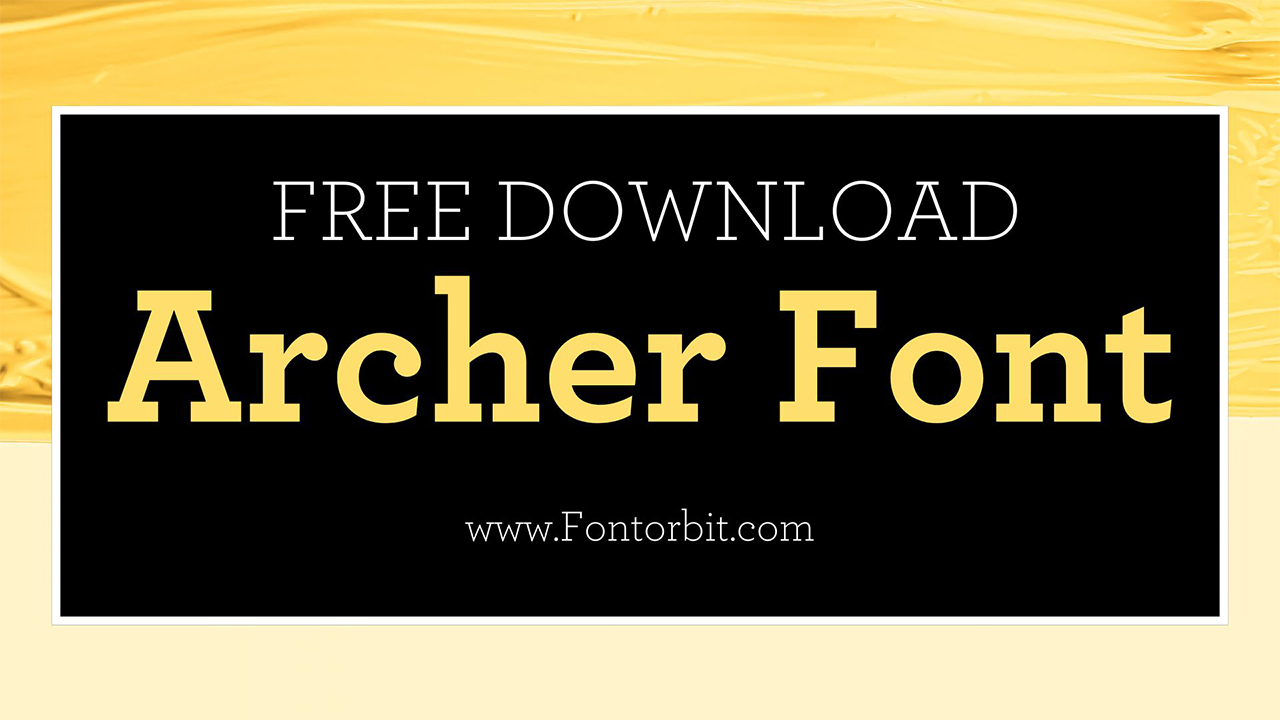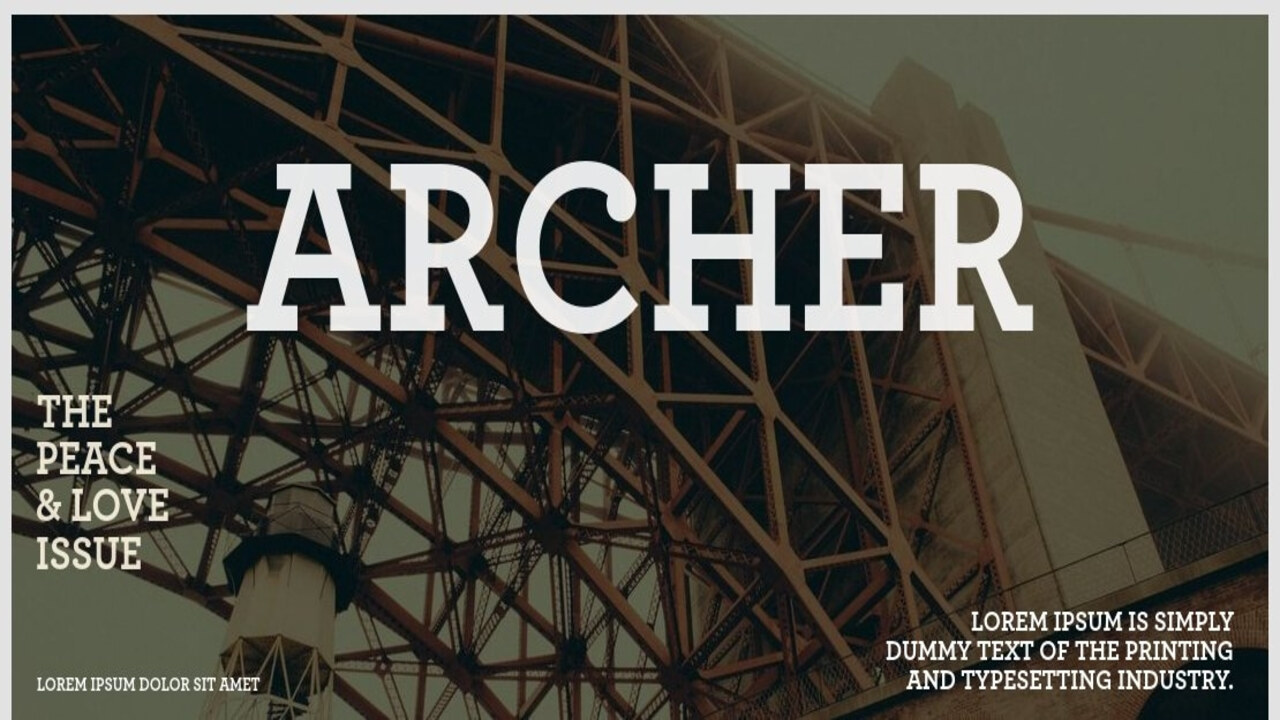
Archer Font, designed by Jonathan Hoefler and first released in 2001, is a versatile and popular geometric slab serif typeface. Known for its warm and inviting design, Archer combines classic slab-serif characteristics with unique features like ball terminals on capital letters. This font is widely used in both print and digital media for its readability and stylish appearance.
The Archer typeface drew inspiration from the geometric slab serif style of the early nineteenth century. Its distinctive use of ball terminals on capital letters like ‘C’ and ‘S’ sets it apart, offering a unique twist on traditional typography. Initially designed for Martha Stewart Living, Archer has since proven its versatility across a spectrum of design applications. Key uses include:
- Magazine Layouts
- Website Design
- Advertising
- Marketing Materials
- Stationery
Archer Font Found In Use
Archer Font has significantly impacted diverse design landscapes, celebrated for its warm and approachable style. Notably, it graced the poster for Wes Anderson’s The Grand Budapest Hotel, showcasing its versatility in high-profile projects.
Its elegant and readable design has also been widely utilized in editorial spreads, magazine layouts, and contemporary branding and digital marketing campaigns, reflecting its broad appeal and effectiveness in enhancing visual communication.
Archer Font stands out for its ability to blend classic slab-serif qualities with a contemporary, inviting design. Its range of weights and styles make it a versatile choice for print and digital media, suitable for everything from branding and advertising to editorial and web design. Its unique character and readability ensure it remains a favorite among designers.
1.What Are The Recommended Font Sizes For Archer Font?
Archer Font is effective across a range of sizes. For headlines and display text, sizes 24pt and above are ideal to leverage its bold and impactful design. For body text, sizes between 12pt and 18pt provide optimal readability while retaining the font’s distinctive style.
2.What Are The Recommended Font Pairings For Archer Font?
Archer pairs well with clean, modern sans-serif fonts or Open Sans for body text. For a more sophisticated look, it complements classic serif fonts. Options like
- Verlag
- Knockout
- Verlag Condensed
- Gotham Condensed
4.What Are The Color Options For Archer Font?
Archer Font works well with high-contrast color schemes, including black on white or white on dark backgrounds. It can also be used with vibrant colors for a modern, eye-catching design.